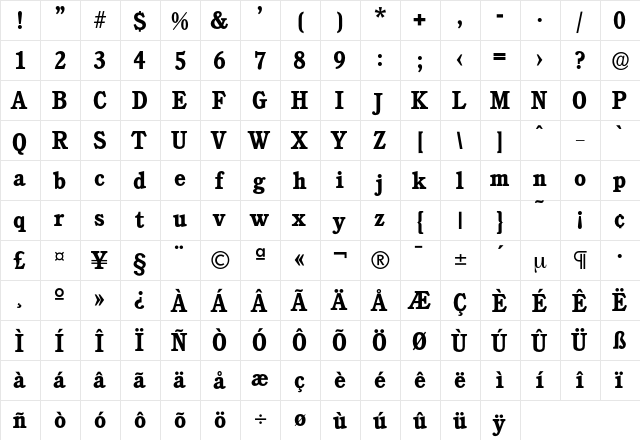
Calgary-DemiBold Regular Font Preview
Calgary-DemiBold Regular
Design Context for Calgary-DemiBold Typeface
Calgary-DemiBold is a composed and adaptable typeface that performs quietly and consistently across a wide range of design contexts. The heavy weight commands attention and anchors typographic hierarchies.